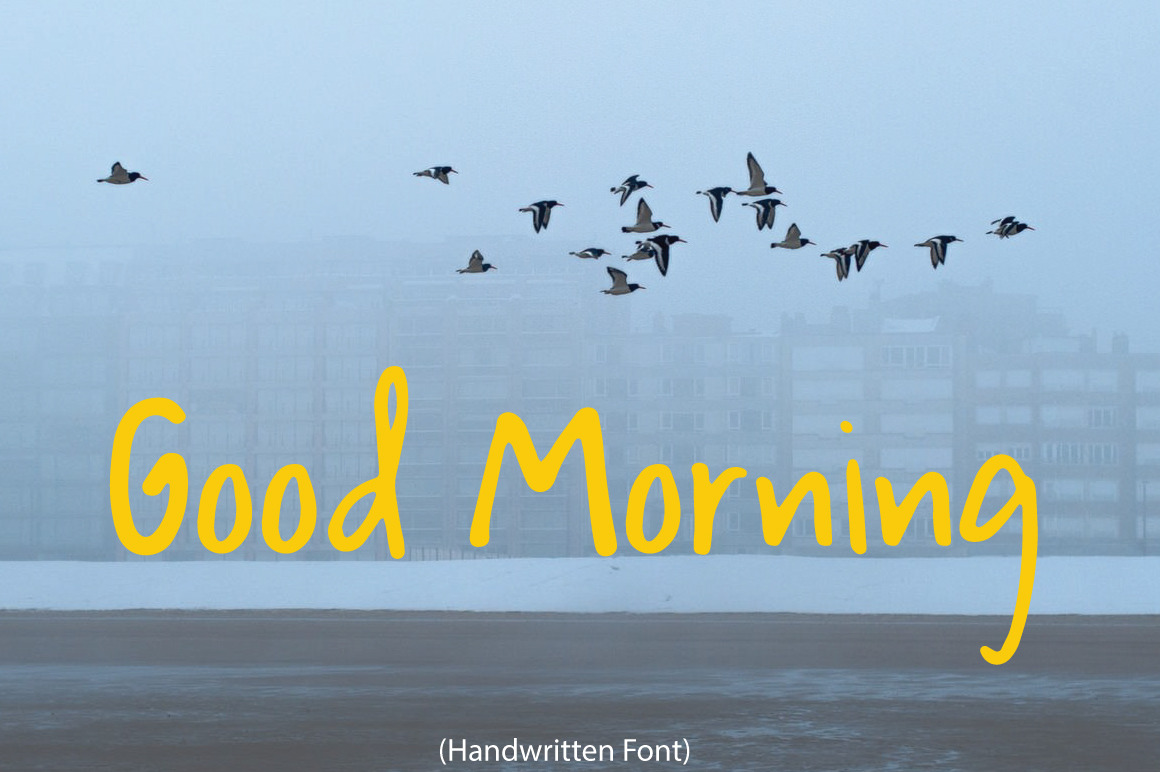
Good Morning | Handwritten Font
Introducing Good Morning handwritten font , font to make your text look so cute. With a hand letter style that makes it look more natural. Ideal for your branding, handwritten quotes, logo, header, poster, apparel, packaging, business cards, etc.